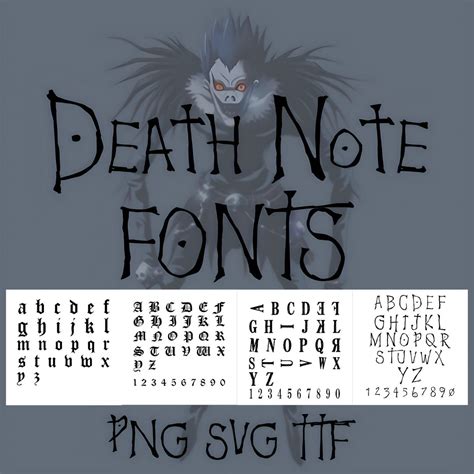
The world of typography is vast and diverse, with countless fonts that evoke different emotions and styles. Among these, the Death Note Font stands out as a unique and intriguing choice, particularly for fans of the popular manga and anime series. This font, inspired by the iconic notebook used by the series' protagonist, Light Yagami, has gained a cult following and is often sought after for its distinctive and eerie aesthetic.
The Origins of the Death Note Font
The Death Note Font is deeply rooted in the visual identity of the Death Note series. The font used in the notebook is a custom design created specifically for the manga. It is characterized by its sharp, angular lines and a somewhat eerie, almost gothic feel. This design choice was intentional, as it reflects the dark and mysterious nature of the story, which revolves around a supernatural notebook that allows its user to kill anyone by writing their name in it.
Characteristics of the Death Note Font
The Death Note Font is known for several key characteristics that make it instantly recognizable:
- Sharp Angles: The font features sharp, angular lines that give it a harsh and unyielding appearance.
- Gothic Influence: There is a clear gothic influence in the design, with letters that have a somewhat medieval or ancient feel.
- Eerie Aesthetic: The overall aesthetic of the font is eerie and unsettling, which aligns perfectly with the themes of the Death Note series.
- Custom Design: The font is a custom design, which means it is not readily available in standard font libraries. This adds to its exclusivity and appeal.
Using the Death Note Font
If you’re a fan of the Death Note series and want to incorporate the Death Note Font into your projects, there are a few things to consider. While the font is not officially available for download, there are several ways to achieve a similar look:
- Custom Design: If you have access to graphic design software, you can create a custom font that mimics the style of the Death Note Font. This requires a good understanding of typography and design principles.
- Font Alternatives: There are several fonts available that have a similar gothic or eerie aesthetic. These can be used as alternatives to achieve a similar look. Some popular alternatives include:
| Font Name | Description |
|---|---|
| Blackletter | A classic gothic font with a medieval feel. |
| Old English Text | A font with a similar eerie and ancient aesthetic. |
| Gothic | A modern take on the gothic style, with sharp angles and a dark feel. |
These fonts can be used in various projects, from graphic design to digital art, to achieve a similar look to the Death Note Font.
Incorporating the Death Note Font into Digital Projects
The Impact of the Death Note Font on Pop Culture
The Death Note Font has had a significant impact on pop culture, particularly among fans of the series. Its distinctive design has become synonymous with the dark and mysterious themes of the story, making it a recognizable symbol of the franchise. The font has been used in various fan art, cosplay, and other creative projects, further cementing its place in pop culture.
The font's influence can also be seen in other media, where creators have drawn inspiration from its unique style. This has led to a broader appreciation of gothic and eerie typography, as well as an increased interest in custom font design.
Creating Your Own Death Note Font
If you’re feeling ambitious and want to create your own version of the Death Note Font, there are several steps you can follow to achieve this. Here’s a basic guide to get you started:
- Study the Original Font: Spend time studying the original Death Note Font to understand its key characteristics. Pay attention to the sharp angles, gothic influence, and overall aesthetic.